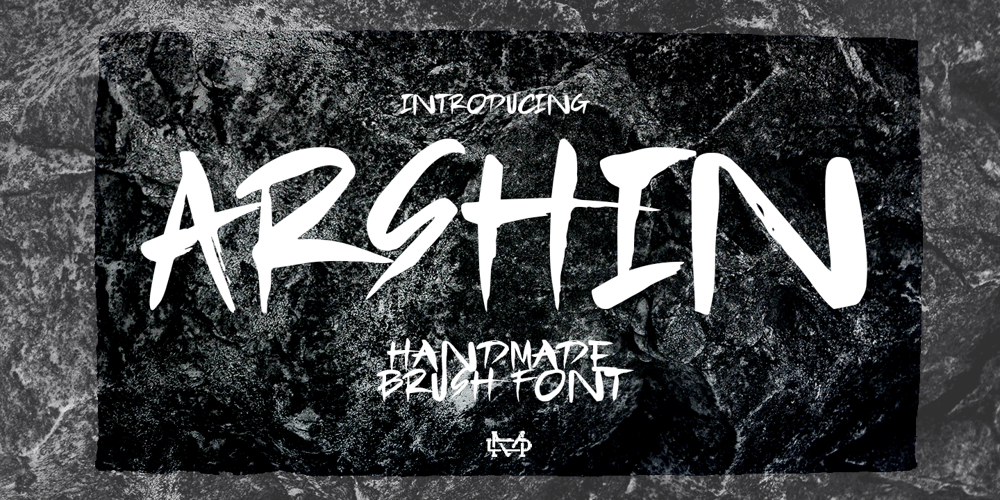
Arshin Font Family was designed by madededuk and published by madeDeduk. Arshin contains 1 styles and family package options. Arshin is a handmade brush font. This font is perfect for poster design, book covers, merchandise, fashion campaigns, newsletters, branding, advertising, magazines, greeting cards, album covers, and more.Features: – Uppercase & Lowercase – Numbers & Symbols – International Glyphs – Multilingual support – ligaturesEnjoy it.